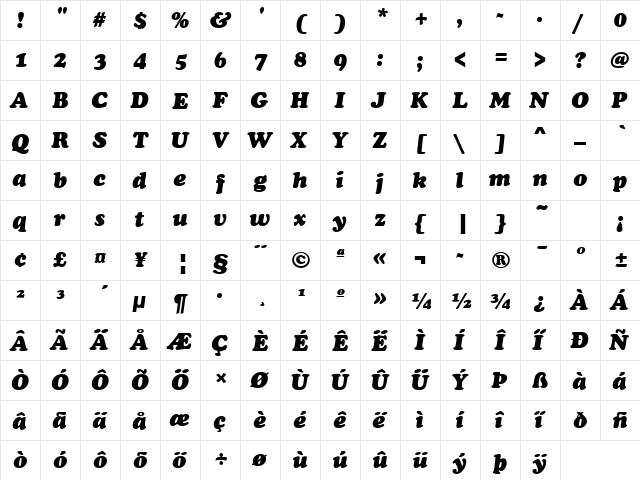
Sugarland Bold Italic
Design Context for Sugarland Typeface
Sugarland offers clean, dependable letterforms without strong stylistic allegiance, making it a practical choice for designers who need flexibility. Its italic angle brings a sense of urgency and motion to the letterforms. Its bold stroke weight gives it real presence on the page.
Pro Tip: Use Sugarland for emphasis, pull quotes, and subheadings where its slanted energy can add rhythm to the layout.